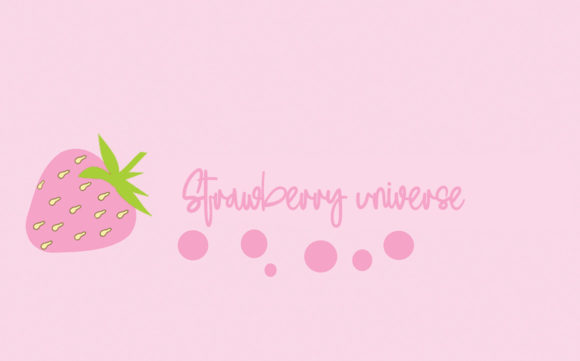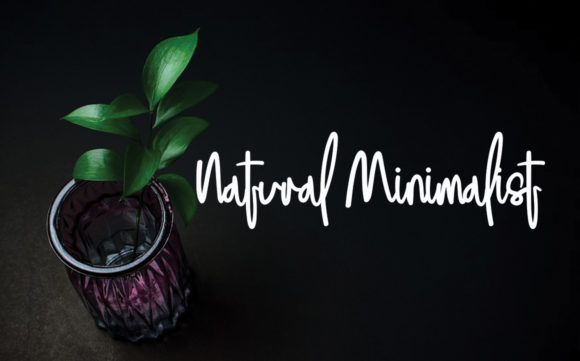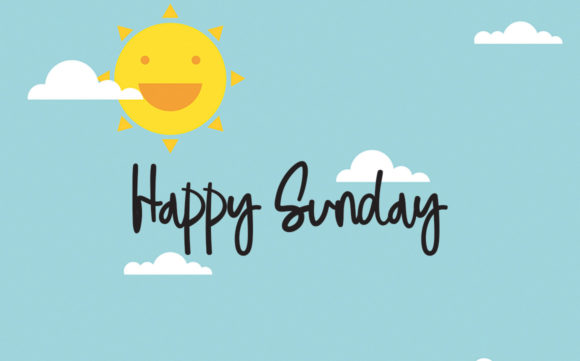
Cute Little Font
About Cute Little Font
Cute Little is a simple and flowing handwritten font. This adaptable font will look great on a variety of design ideas. It will add a fun and friendly touch to each of your projects!